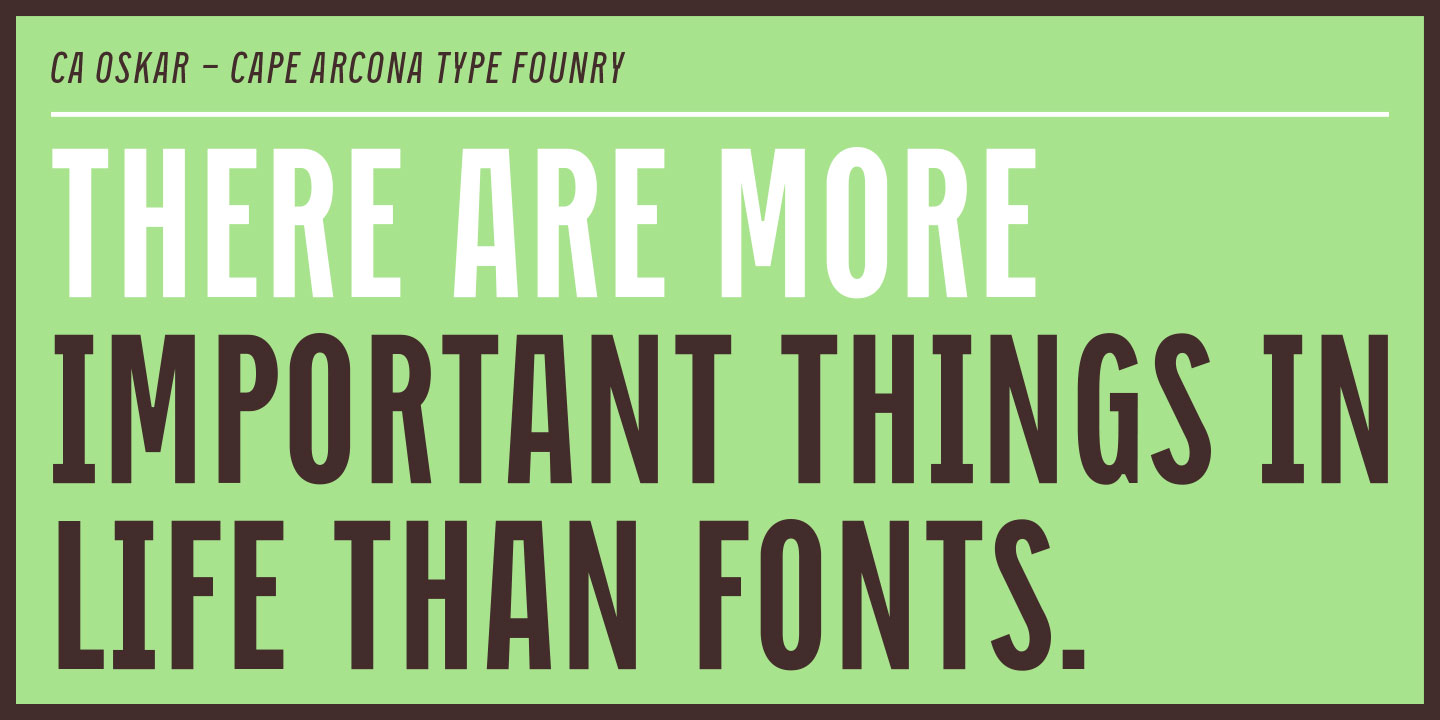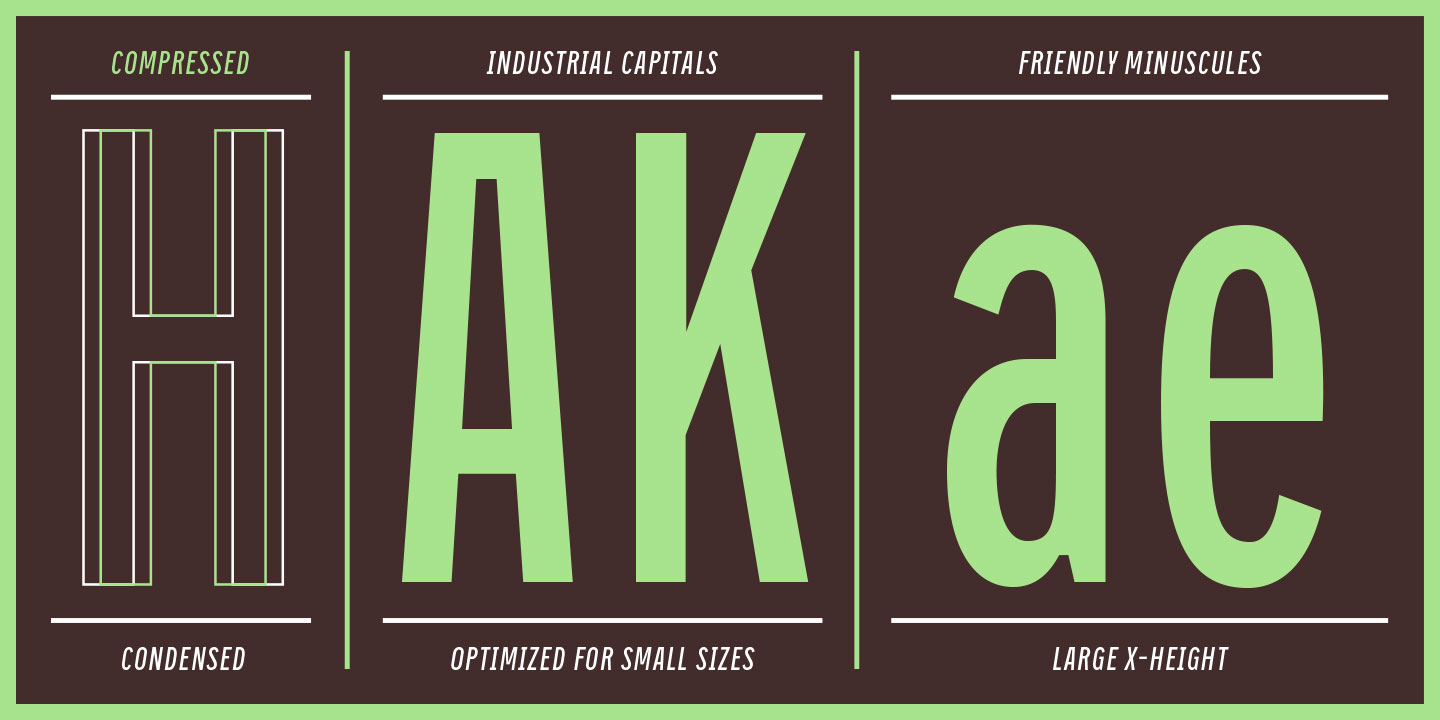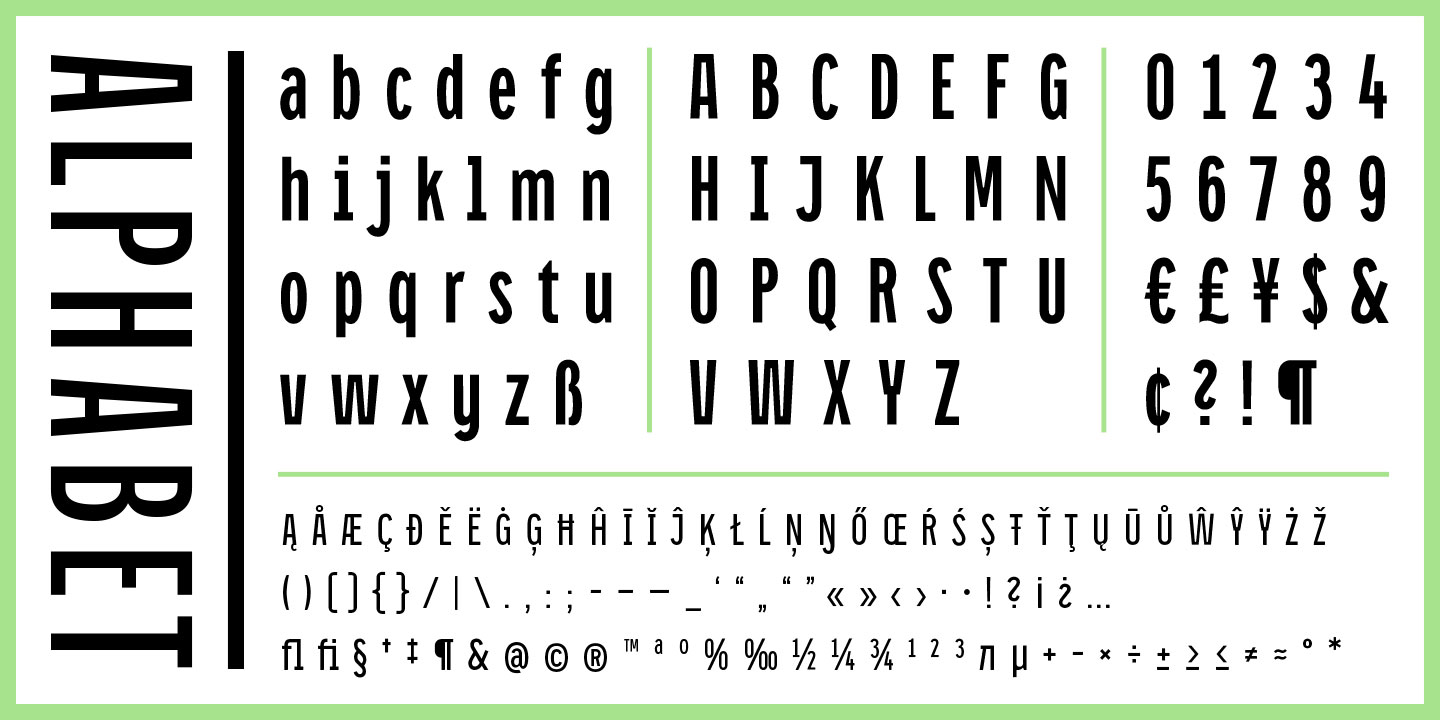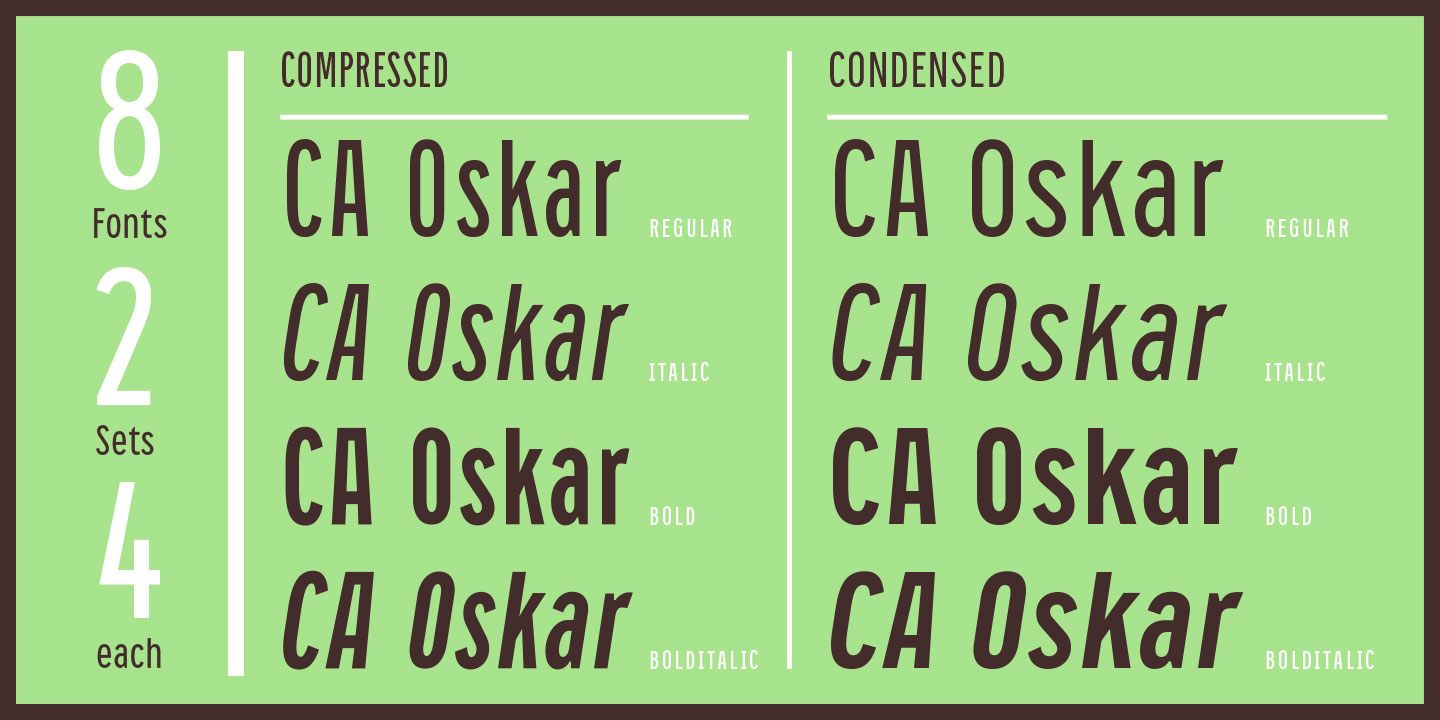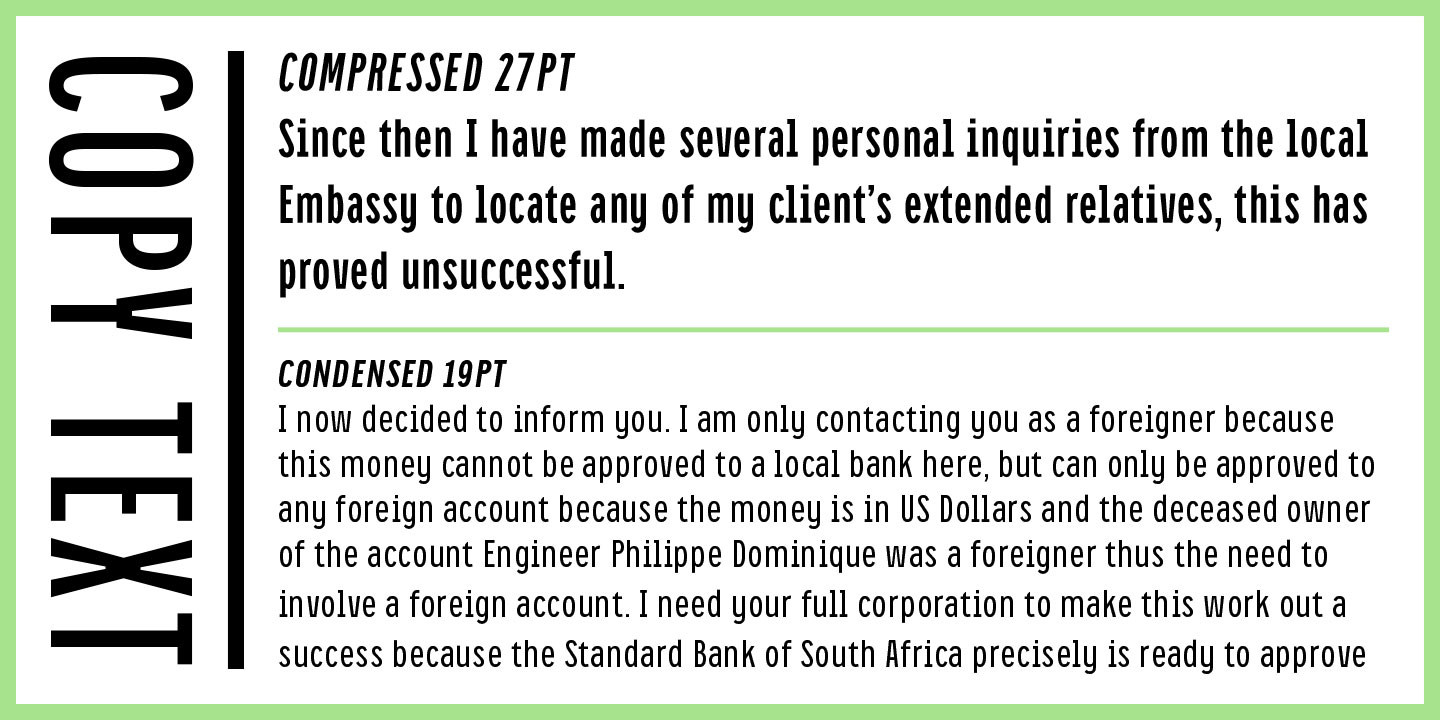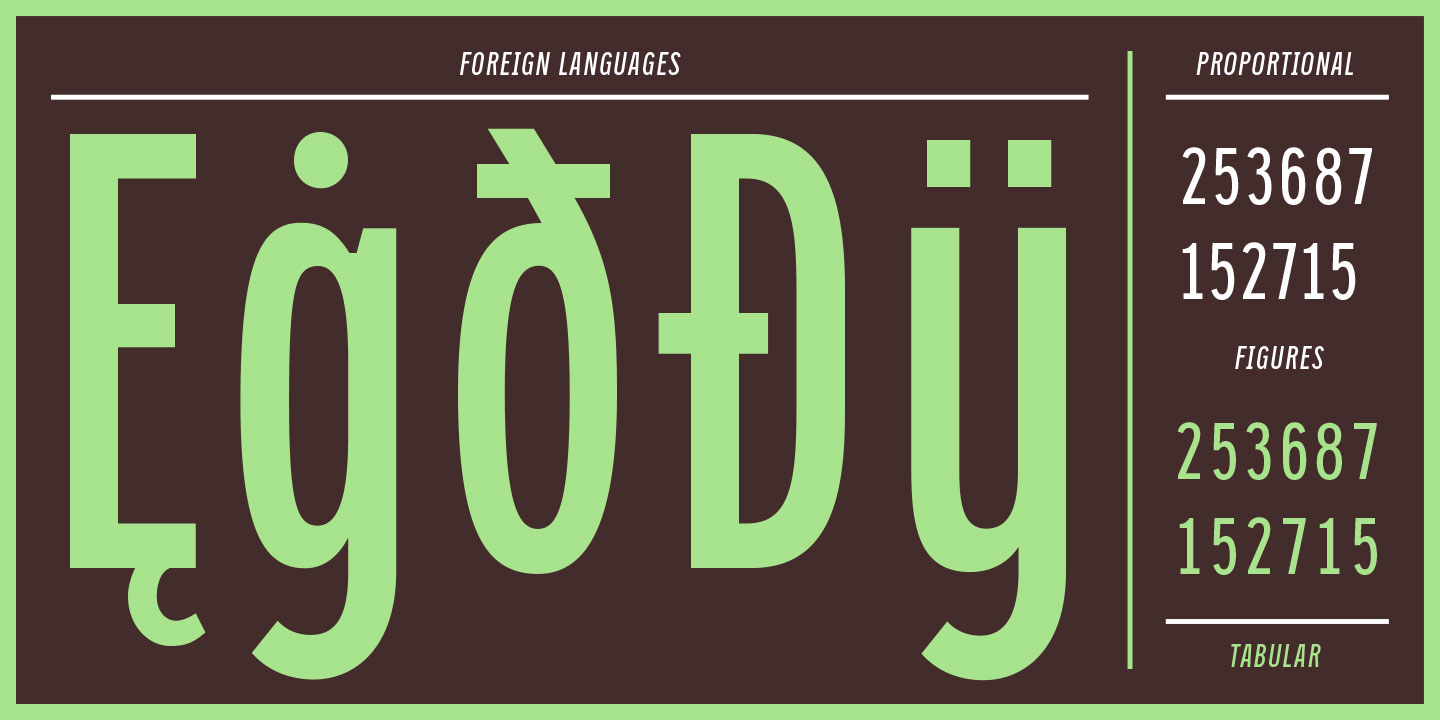
CA Oskar came into being as a custom typeface for the international Traumzeit music festival. As a substantial part of the new corporate identity, it had to be characteristic, but also flexible in use. Starting with the design of compressed caps for headlines, the typeface was soon expanded by a condensed weight for text-setting and further developed into a fully functional font with two widths and two weights. Both weights are very space-efficient, which was — apart from aesthetic considerations — an important issue in the process of the design.
CA Oskar is a mixture of industrial harshness and friendly round forms, reflecting the spirit of fusion, which is basically what the whole festival is about. Its very slim proportions in two widths make it an attractive alternative to fonts like Alternate Gothic, but CA Oskar adds an extra portion of personality and a coherent choice of weights.